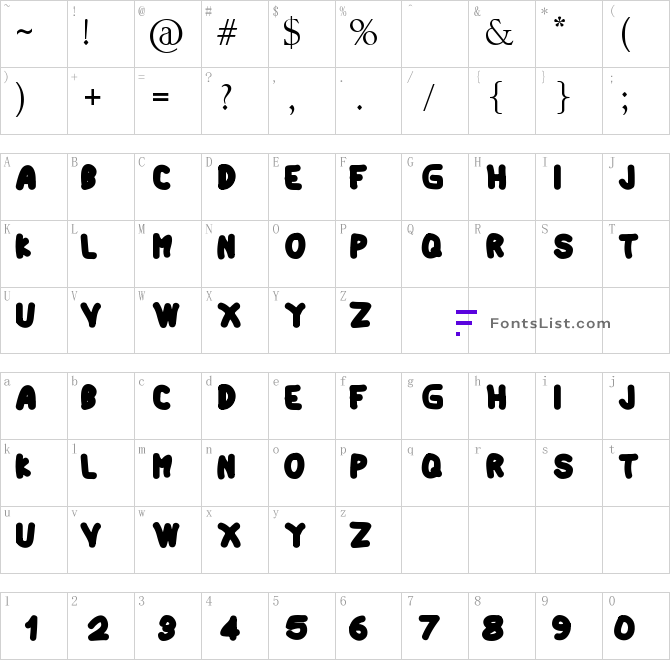
- Font Name:Artindo Personal Use Only
Artindo-Personal-Use-Only.ttf is a very beautiful artistic font, Artindo-Personal-Use-Only.ttf is widely used in the design and printing of various books and pictures,Artindo-Personal-Use-Only.ttf has a strong visual impact,Artindo-Personal-Use-Only.ttf is a commonly used font in newspapers, magazines and books, and is used in posters, e-commerce Poster design, store design, logo design, font design and other fields.Artindo-Personal-Use-Only.